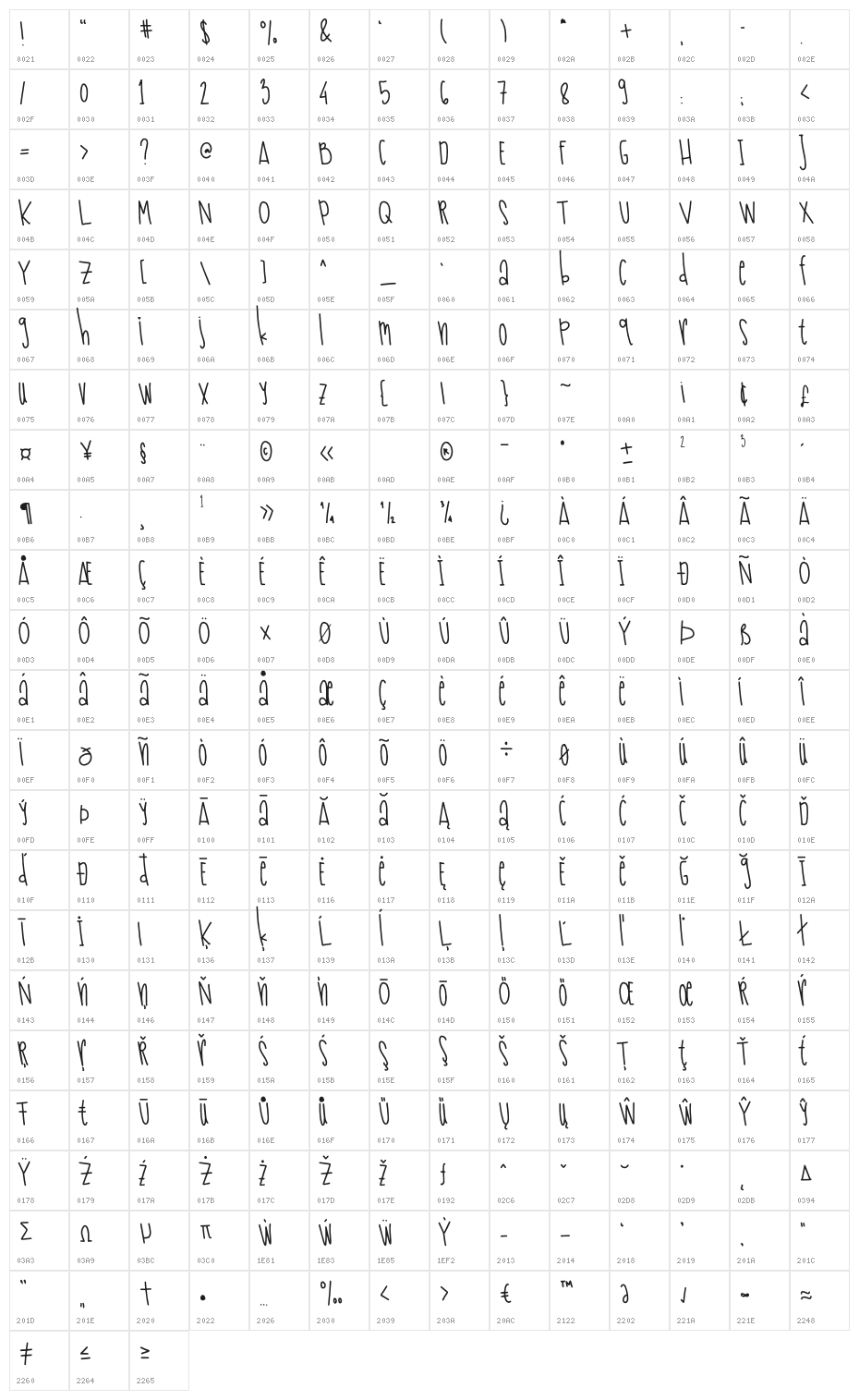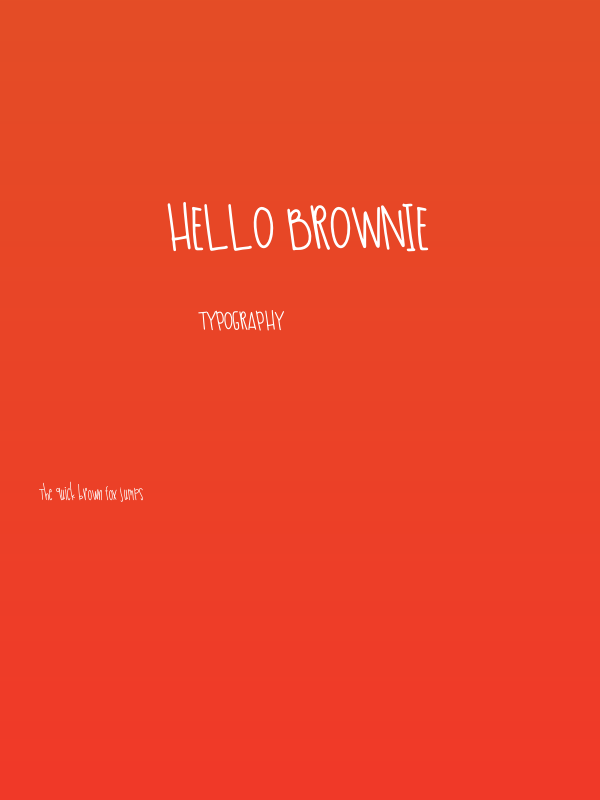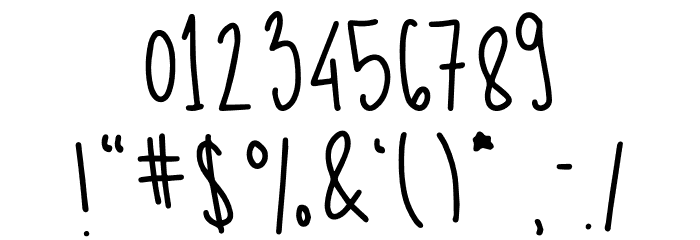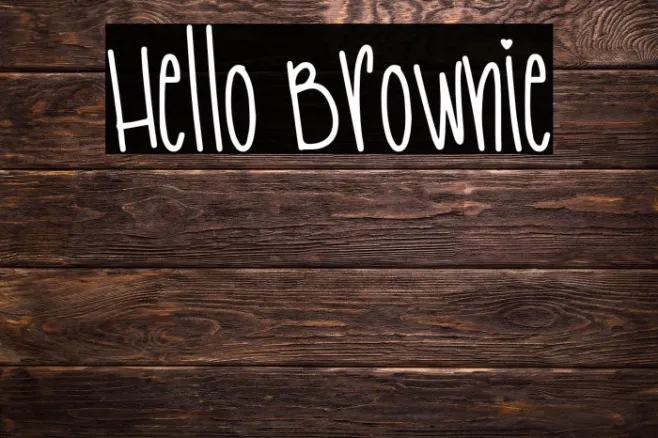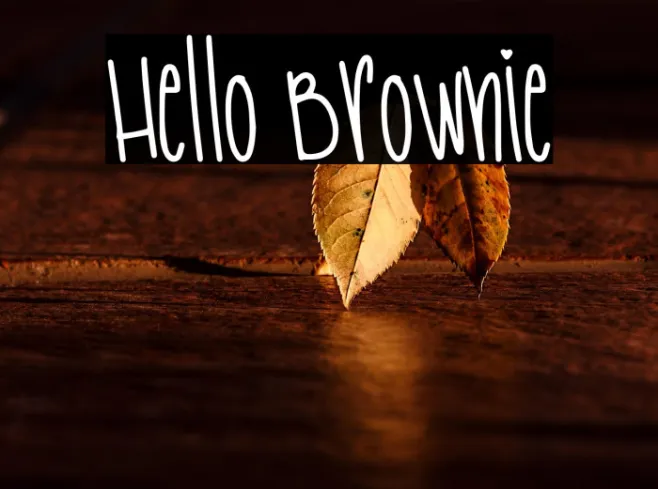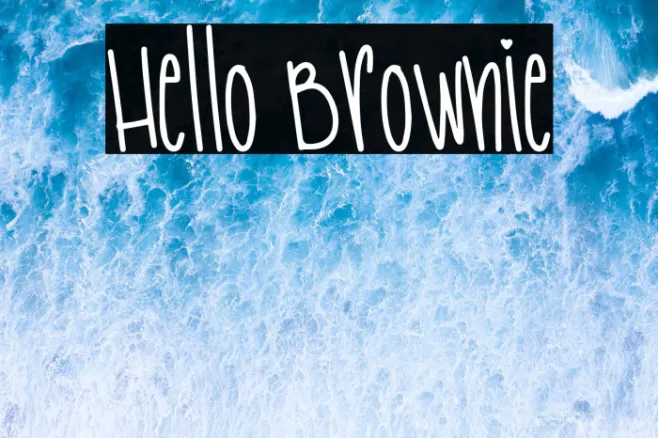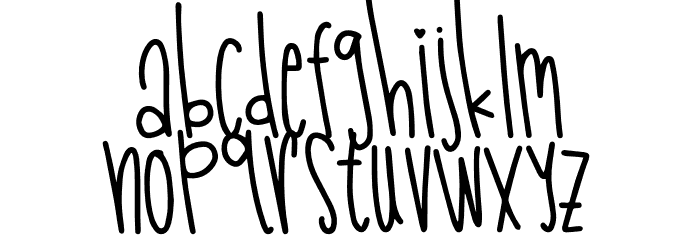
Hello Brownie Font
Hello Brownie Description
This font features a playful and whimsical style, characterized by its tall, narrow letters with a hand-drawn appearance. The strokes are uneven, giving it a casual and informal feel. The uppercase and lowercase letters maintain a consistent height, while the numbers and special characters follow the same quirky design. The font's unique personality makes it stand out, with each character slightly leaning and varying in width, adding to its charm. It's perfect for projects that require a fun and approachable aesthetic.